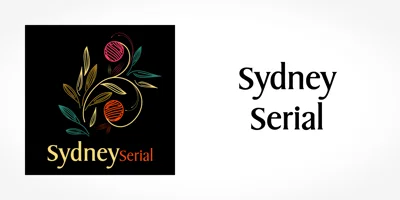
Sydney Serial Font
This cosmopolitan typeface is perfect for Australian tourism campaigns, urban architecture firms, harbor cruise services, modern lifestyle brands, international business conferences, coastal resort marketing, contemporary art galleries, metropolitan dining establishments, cultural exchange programs, city planning organizations, global consulting firms, and sophisticated travel experiences. The font's contemporary design makes it ideal for projects that celebrate urban sophistication, international connectivity, and the vibrant energy of world-class cities that bridge cultures and continents.
Sydney Serial Font is exciting because it embodies metropolitan sophistication and international appeal through its contemporary letterforms and city-inspired character structure. The font's clean lines and cosmopolitan proportions create an atmosphere of global connectivity, urban elegance, and cultural diversity, making it perfect for brands that want to convey worldliness, sophistication, and the dynamic energy of international metropolitan centers. Its cosmopolitan personality ensures instant recognition while maintaining excellent readability across various urban applications.
The Sydney Serial Font family includes multiple metropolitan variations: Light Harbor, Regular City, Medium Urban, Bold Metropolitan, and Black Cosmopolitan weights, each available in standard and condensed versions. Special international editions feature global alternates, city symbols, and cultural ornaments that enhance the font's worldly appeal, providing designers with comprehensive tools for creating authentic metropolitan communications.
Connect with global sophistication using Sydney Serial Font – a typeface that represents metropolitan excellence and international style. Whether you're developing tourism branding, urban planning materials, or cosmopolitan marketing campaigns, this font delivers the sophisticated presence and global appeal your projects need while ensuring exceptional performance and metropolitan impact across all urban and international applications.